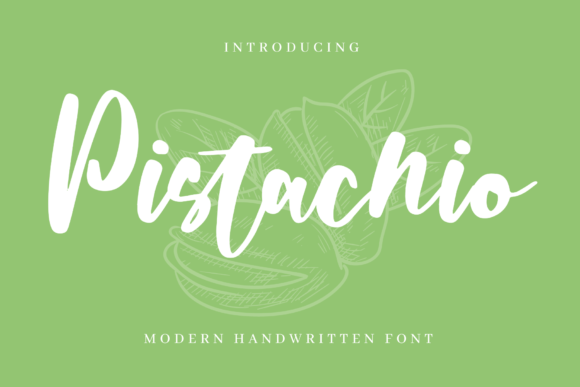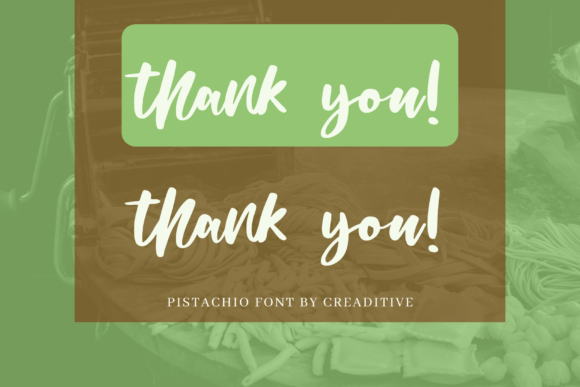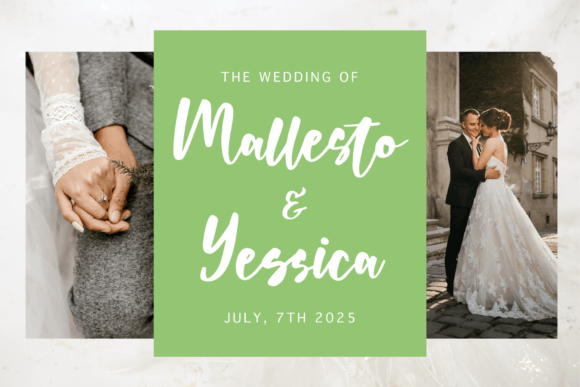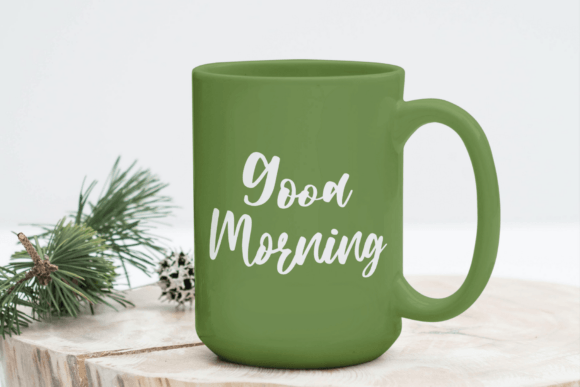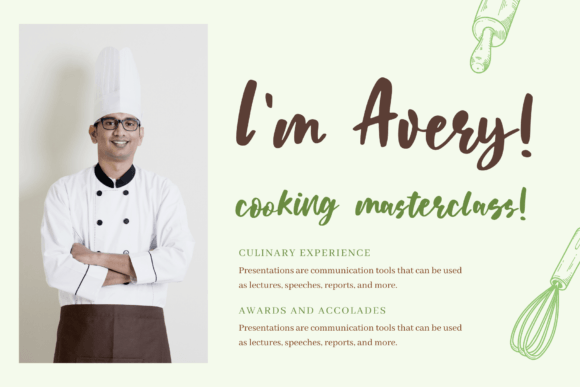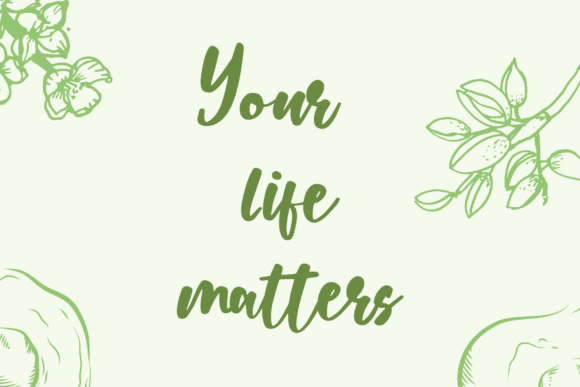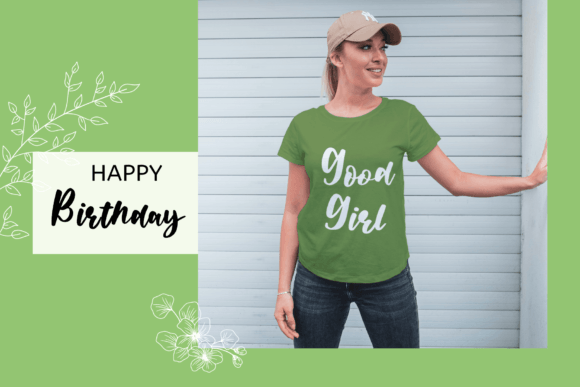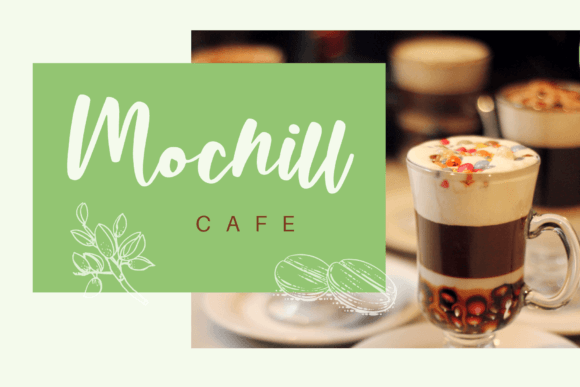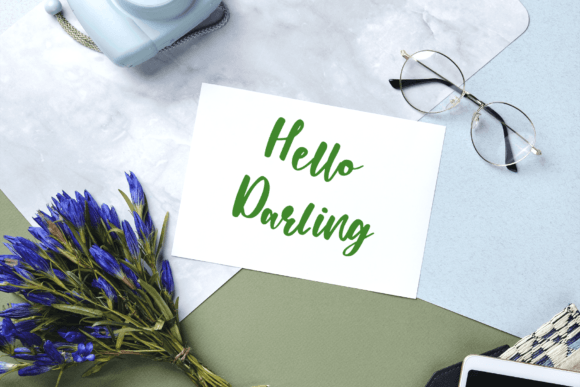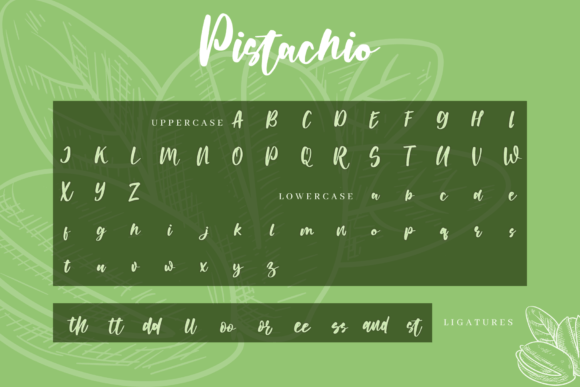
Pistachio Font
About Pistachio Font
Pistachio is not just a font; it’s a lively and connected script font that injects a fresh and beautiful aesthetic into any creative project. With its playful yet elegant appearance, Pistachio becomes a versatile choice for various design applications, ranging from logos and branding to product cards and labels.
One of Pistachio’s key strengths lies in its ability to convey a sense of vibrancy and creativity. The connected script style seamlessly flows, creating a visually pleasing and harmonious rhythm in the letterforms. This unique quality makes Pistachio an excellent choice for projects that demand a dynamic and engaging typographic presence.
Logos, as the face of a brand, benefit from Pistachio’s distinctive charm. The font adds a touch of personality and warmth, making the logo not only memorable but also reflective of the brand’s character. Its fresh look ensures that the logo stands out, leaving a lasting impression on the audience.
Branding, a multifaceted aspect of design, finds a reliable ally in Pistachio. Whether applied to packaging, promotional materials, or any brand collateral, the font brings an element of creativity that resonates with a modern and discerning audience. Its PUA encoding ensures accessibility to a treasure trove of glyphs and ligatures, providing designers with a wide range of possibilities for customization.
For product cards and labels, Pistachio’s lively script injects energy into otherwise mundane information. The font transforms these elements into engaging visual elements, contributing to a cohesive and aesthetically pleasing overall design. Its versatility shines through as it adapts to different contexts, enhancing the overall visual identity of the product.
Pistachio’s PUA encoding is a valuable feature, allowing easy access to its diverse set of glyphs and ligatures. This feature empowers designers to explore and experiment, ensuring that each project can be uniquely tailored to meet specific creative visions.
In conclusion, Pistachio is more than just a font; it’s a design asset that brings a fresh and playful vibe to any creative project. Whether used in logos, branding, product cards, labels, or beyond, Pistachio is poised to enhance and uplift the visual language of your designs.